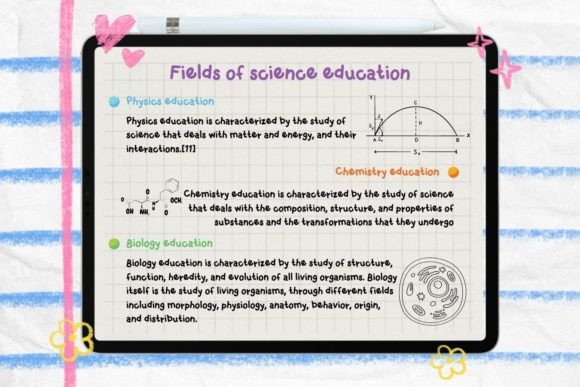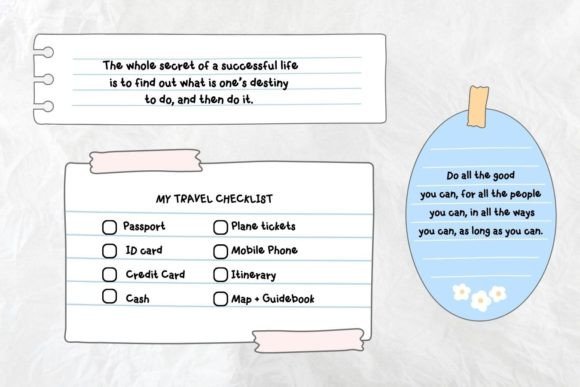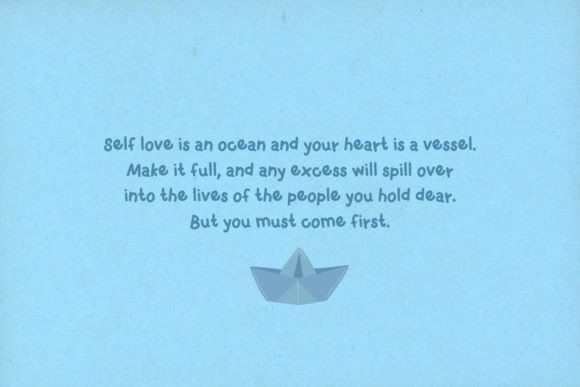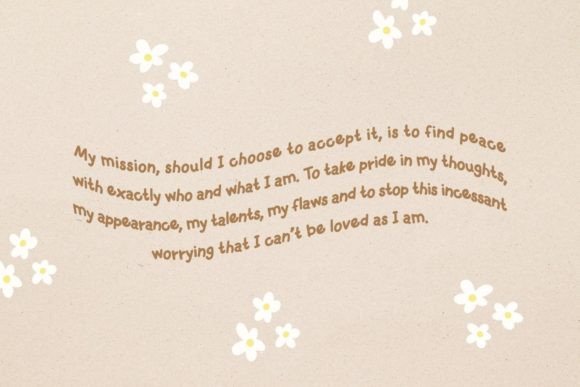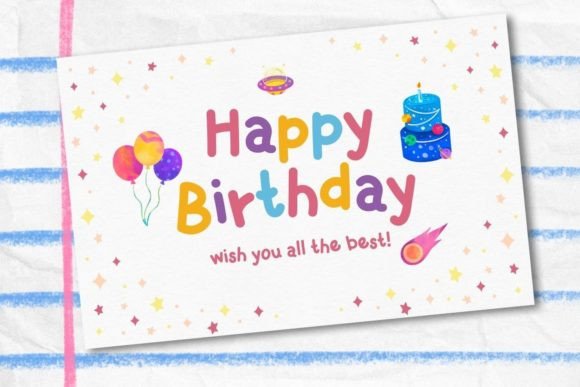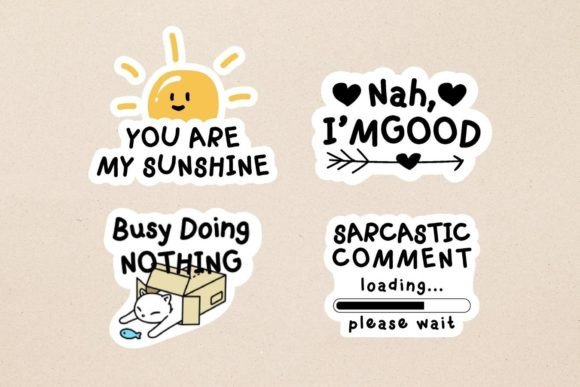
Introduction to Let’s Lecture Font
Do you remember the feeling of scribbling down notes in class, trying to keep up with the teacher’s handwriting? Those chaotic, colorful notes were not only a reflection of our personalities but also a symbol of our eagerness to learn. The Let’s Lecture Font is a nod to those carefree days, a font that captures the essence of handwritten notes and brings a touch of creativity to your projects.
As designers, we’re always on the lookout for unique and high-quality design resources that can elevate our work. The Let’s Lecture Font is a valuable addition to any designer’s toolkit, perfect for web design, app design, social media, and advertising. With its transparent background and free download option, this font is a game-changer for creatives looking to add a personal touch to their projects.
Key Features of Let’s Lecture Font
- Unique, modern design suitable for creative projects and educational materials
- Available in 1 style and 1 weight to provide a consistent look
- Perfect for creating engaging educational materials, presentations, and websites with a clean, modern design
Honest Review: Let’s Lecture Font
As a designer, I’ve had the pleasure of working with various fonts for creative projects. Recently, I stumbled upon the Let’s Lecture Font, and I must say it’s a game-changer. The font is available for free download, making it an excellent resource for designers on a budget.
One of the standout features of the Let’s Lecture Font is its high quality. The font is crisp, clear, and has a unique character that adds a touch of sophistication to any design. I particularly love how the font works well with transparent backgrounds, allowing for a seamless integration with other design elements.
Here are some of the things that work well with the Let’s Lecture Font:
- ✨ High-quality design: The font is well-crafted and has a professional feel to it.
- ✨ Unique character: The font’s distinctive style sets it apart from other fonts in the market.
- ⚠️ Limited font sizes: The font may not be available in as many font sizes as some other fonts in the market.
- ⚠️ Limited language support: The font may not support as many languages as some other fonts in the market.
Overall, I’m impressed with the Let’s Lecture Font. It’s a high-quality font that’s perfect for designers working on creative projects. While it has a few limitations, the font’s unique character and high quality make it an excellent addition to any design resource library.
Let’s Lecture Font is ideal for presentations, posters, and other visual materials where a clear and readable font is essential. It’s also perfect for creating educational materials, such as lecture notes and study guides.
Alternatives to Let’s Lecture Font
Great Vibes Font is a beautiful, high-quality font perfect for creative projects that require a sense of elegance and sophistication. It features a transparent background, making it easy to overlay on any design element. This font is ideal for wedding invitations, greeting cards, and other design projects where a touch of class is needed.
Compared to Let’s Lecture Font, Great Vibes Font is more elegant and sophisticated, with a wider range of styles and weights to choose from. It’s a great alternative for designers looking for a high-quality font that can elevate their creative project.
Alex Brush Font is a high-quality, handwritten font that’s perfect for designers who want to add a personal touch to their creative project. It features a free download option, making it an excellent choice for designers on a budget. This font is ideal for wedding invitations, greeting cards, and other design projects where a handwritten feel is needed.
Q: What is the quality of Let’s Lecture Font?
Let’s Lecture Font is a high-quality font, designed to provide clear and readable text. The font is optimized for digital use and is suitable for a wide range of creative projects, from print to web design.